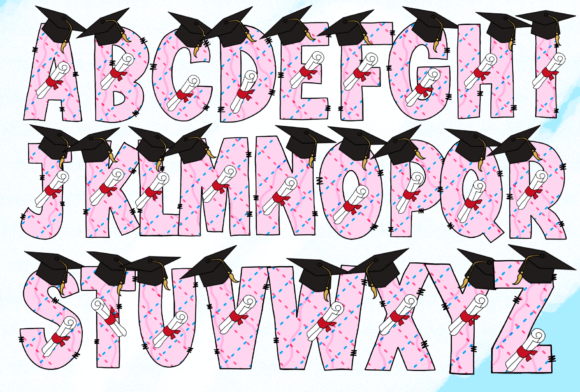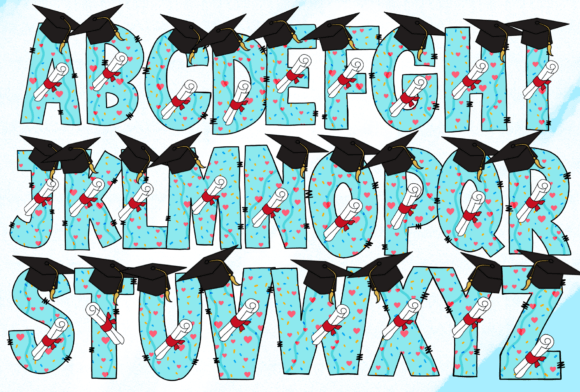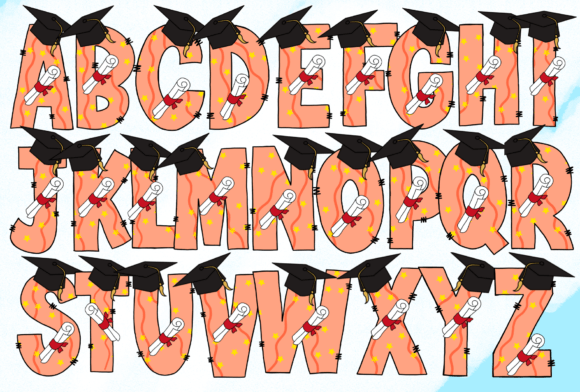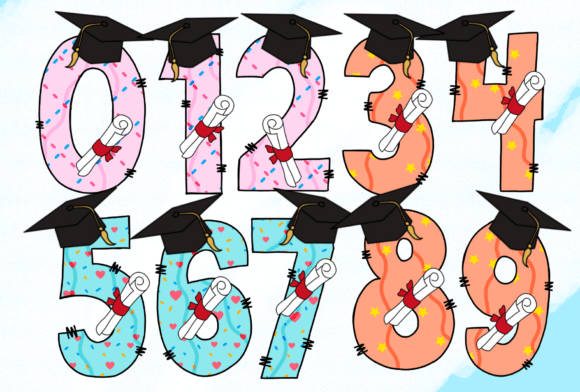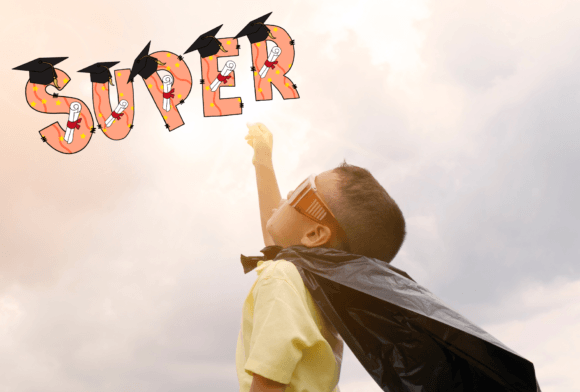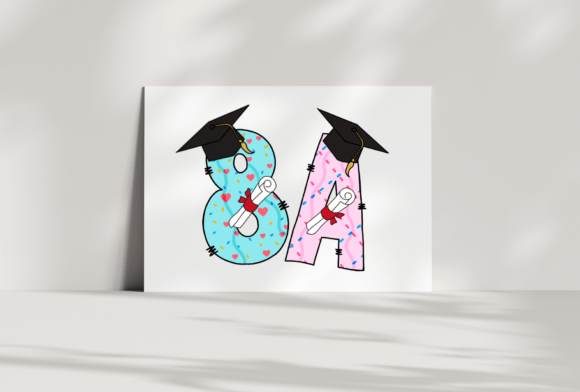
Celebrate Achievements with Congratulations Font: The Ultimate Decoration for Designers and Crafters
Are you looking for a unique and festive font to commemorate special occasions, particularly graduations and academic achievements? Look no further than the Congratulations Font, a delightful typeface adorned with graduation hats and diplomas. This charming font is specifically designed to add a touch of excitement and celebration to your designs, making it perfect for designers and crafters seeking to create memorable and personalized projects.
What Makes Congratulations Font So Special?
Congratulations Font stands out from other fonts due to its distinctive and thematic design. Each letter and number is carefully crafted to incorporate graduation hats and diplomas, instantly conveying a sense of achievement and festivity. This makes it an ideal choice for:
- Graduation announcements and invitations
- Academic achievement certificates and diplomas
- Social media posts celebrating milestones and successes
- Custom party decorations and greeting cards
Key Features of Congratulations Font
This remarkable font comes with several features that make it a valuable addition to any designer’s or crafter’s toolkit:
- Unique Design: The font’s design is meticulously crafted with graduation-themed elements, ensuring your projects stand out.
- Bonus PNG Images: To add extra flair to your designs, the font package includes bonus PNG images in three vibrant colors. These images can be used to create stunning visual effects or as standalone graphics.
- Versatility: Whether you’re creating digital content or physical products, Congratulations Font adapts seamlessly to various design needs.
To make the most of Congratulations Font, consider the following tips:
- Mix and Match: Combine Congratulations Font with other fonts to create contrast and hierarchy in your designs.
- Play with Colors: Take advantage of the vibrant bonus PNG images to add pops of color to your projects.
- Be Creative: Don’t be afraid to experiment with different design elements and techniques. The unique theme of Congratulations Font encourages creativity and innovation.
Congratulations Font is more than just a font – it’s a celebration in itself. With its distinctive graduation-themed design and bonus PNG images, it offers endless possibilities for designers and crafters looking to create memorable and personalized projects. Whether you’re commemorating a graduation, celebrating an achievement, or simply looking for a unique design element, Congratulations Font is the perfect choice. Download it today and start creating your own celebratory designs!